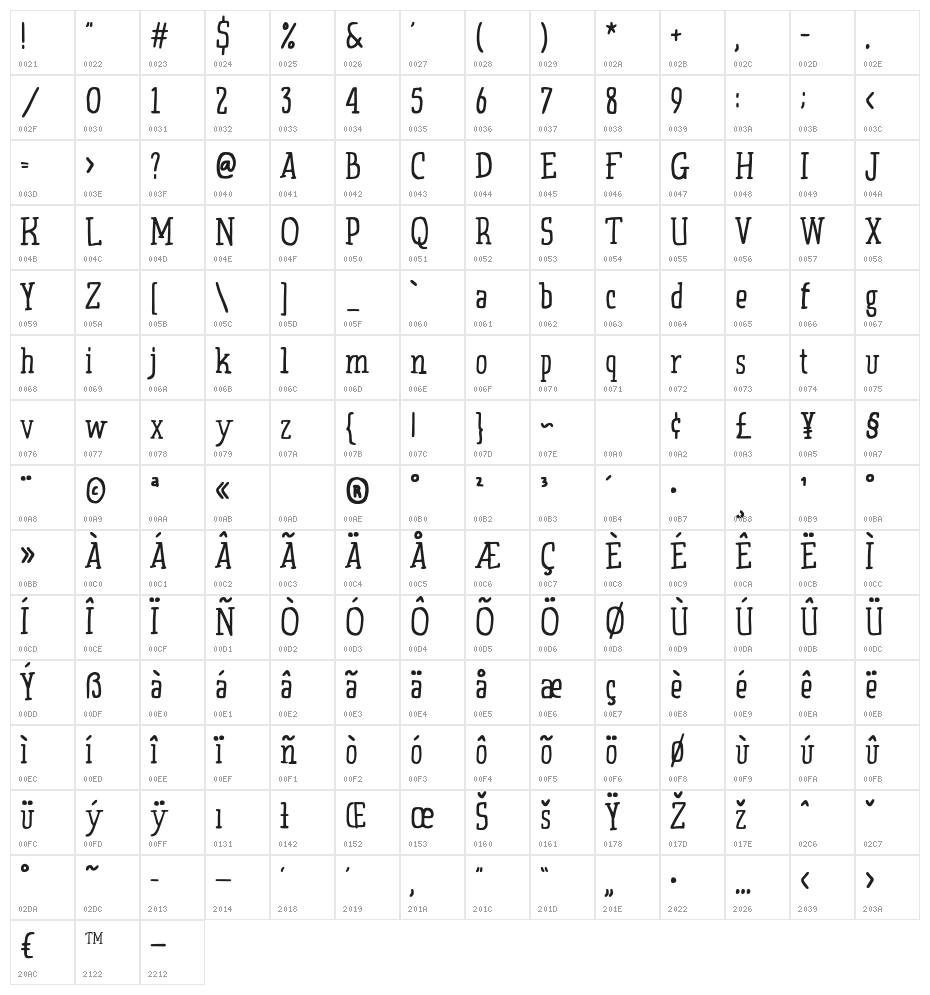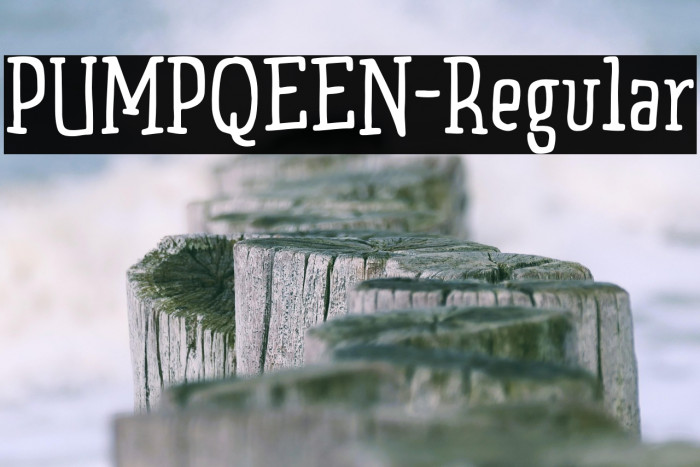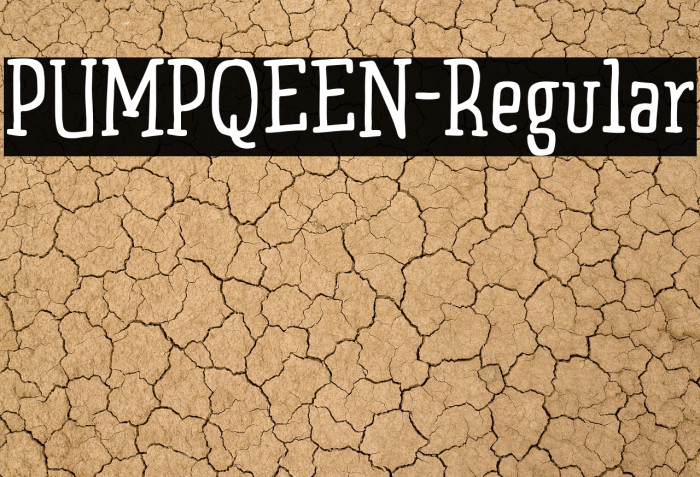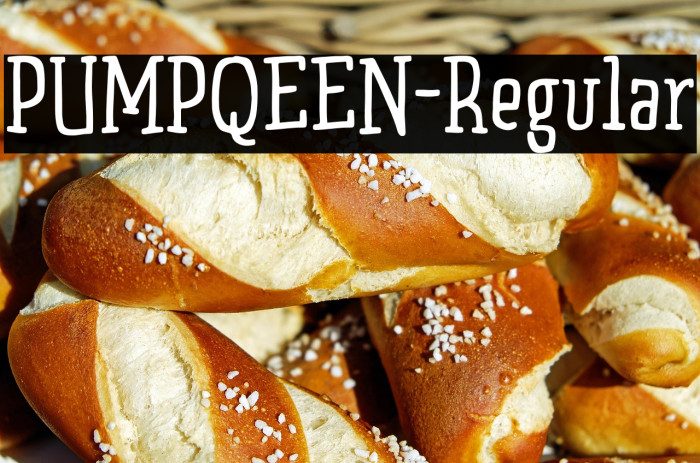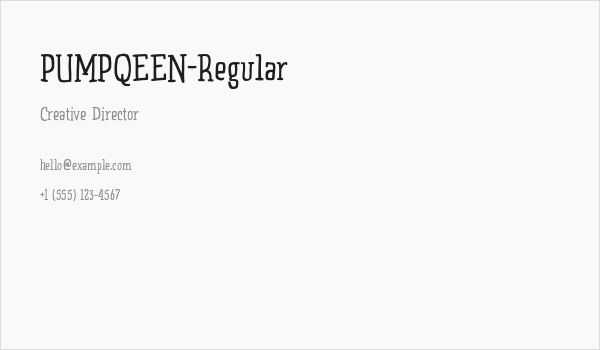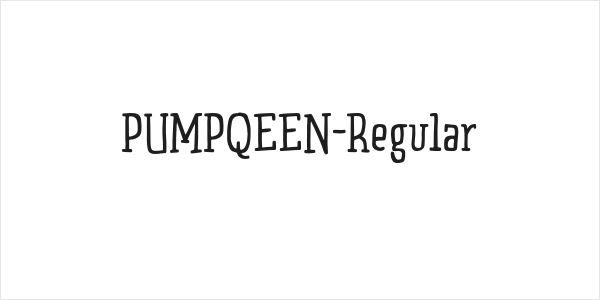
PUMPQEEN-Regular Font
PUMPQEEN-Regular Description
This font features a playful and whimsical style with a hand-drawn appearance. The characters have a slightly uneven baseline, adding to its casual and informal look. The strokes are moderately thick, providing good readability while maintaining a fun and quirky aesthetic. The uppercase and lowercase letters are distinct, with the uppercase being slightly taller and more pronounced. Numbers and special characters are consistent with the overall style, making it versatile for various uses.
| Use Case | Headlines, Logos, Casual Text |
| Proposed Projects | Ideal for children's books, greeting cards, playful branding, and casual invitations. |